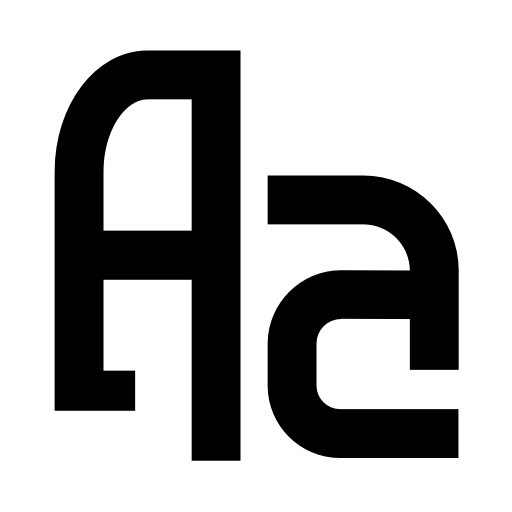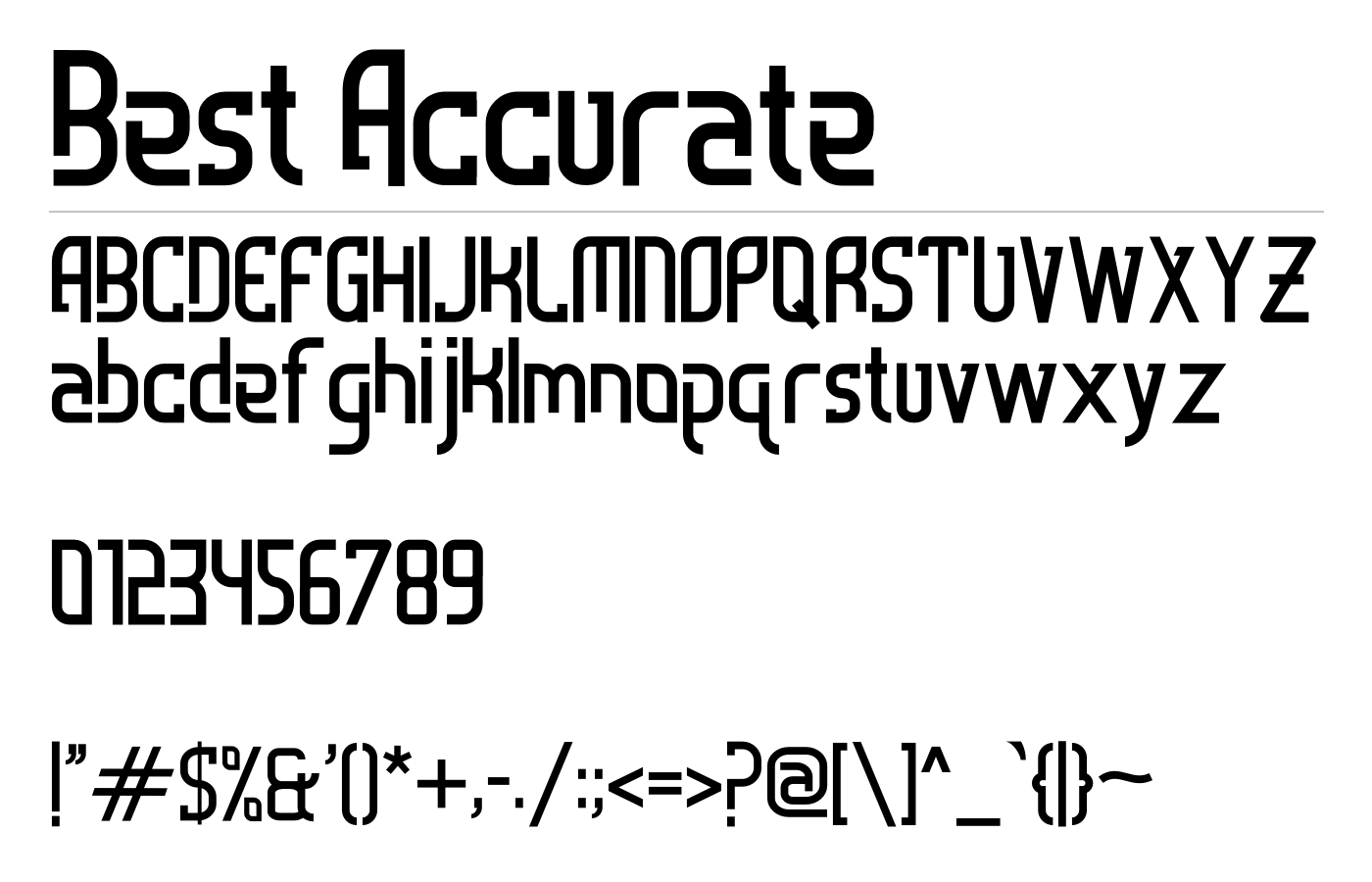
Best Accurate Font is a modern, geometric sans serif with a condensed structure and medium weight, featuring clean, sharp edges and slightly unconventional letterforms that give it a futuristic, technical feel. Its clear, uniform stroke contrast and distinctive shapes make it ideal for technology branding, headlines, and editorial use where precision and a contemporary vibe are key. This font works well in designs that need a bold yet elegant presence with a strong sense of accuracy and innovation.
Best Accurate Font